Colophon Foundry applies typefaces to products
Colophon Foundry, set up by Anthony Sheret and Edd Harrington, is celebrating its fifth anniversary with an exhibition that shows its typefaces applied to products reflecting either the name or the meaning of each font.
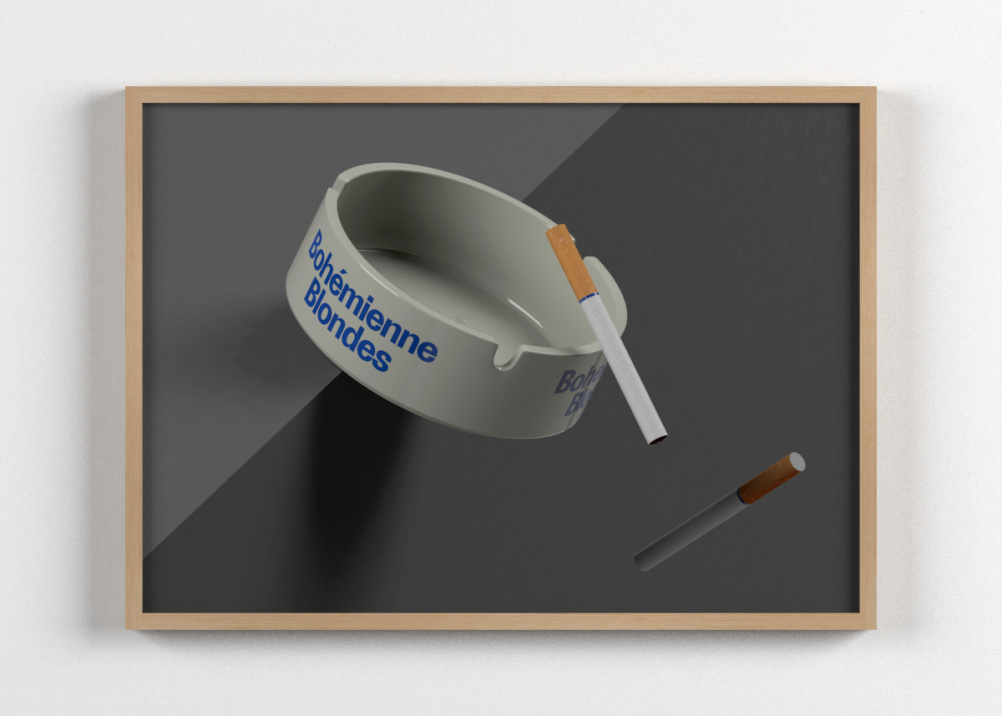
For example the words Bohémienne Blondes are written on the side of an ash tray in La Fabrique, making it look all care-free and aloof, while ‘Thank You. Have a very pleasant day’ is applied to a shopping bag in Law, presumably to look instructive, informative and to the point.
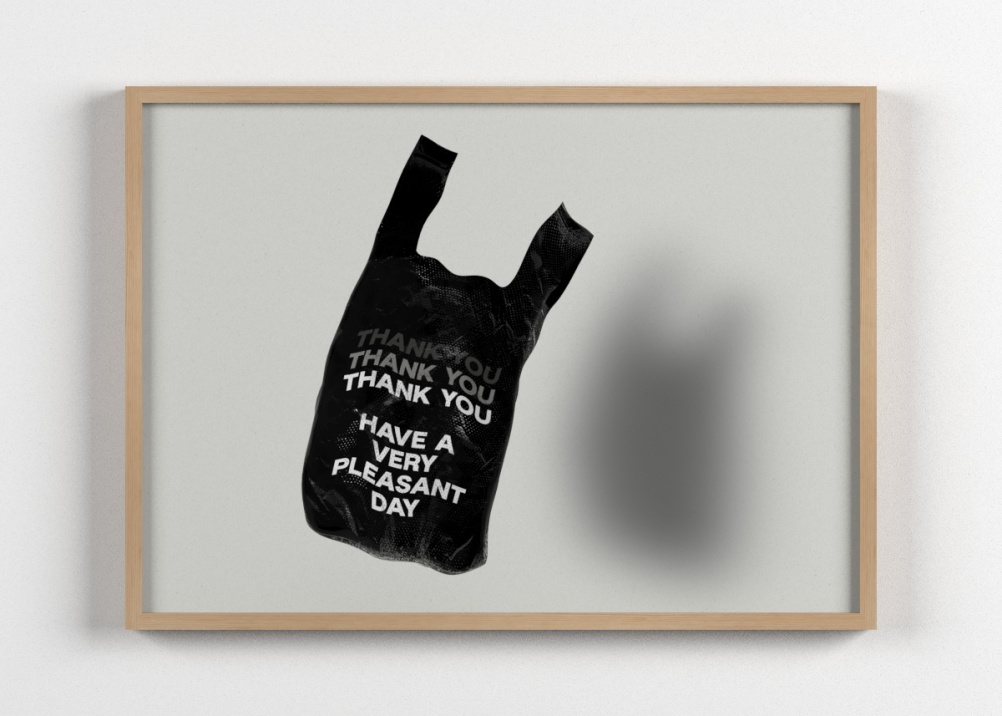
Meanwhile the Leroy typeface is clear, precise and numeric on this ruler.
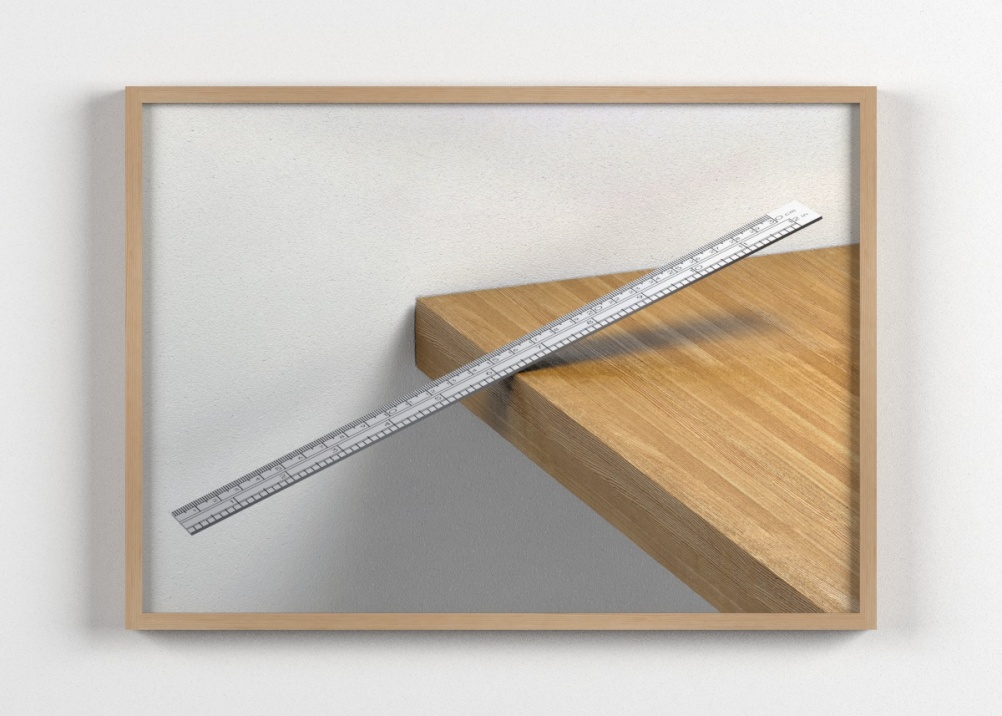
In all, 26 type faces have been plucked from the Colophon portfolio and one, Burgess, has been created especially for the exhibition.
Five Years features typefaces designed by Anthony Burrill, Benjamin Critton, Alison Haigh, Oscar & Ewan, Studio Makgill, and Dries Wiewauters for Colophon, as well as typefaces by the Entente, which was run by Sheret and Harrington before they set up Colophon.
The exhibition is accompanied by a catalogue of the same name, published by Colophon Foundry, and edited by Benjamin Critton, featuring an essay by Aileen Kwun.
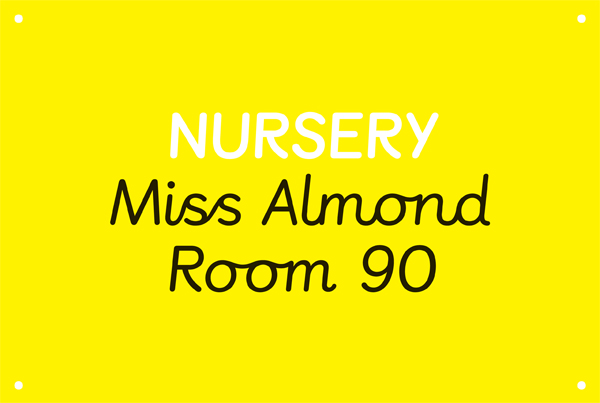
The Colophon Foundry also features in the Design Museum’s Designs of the Year exhibition. It’s been nominated for the Castledown Primary School Type Family.
The typeface was first developed for the school, but has since become a system that aims to unify typography throughout UK primary schools. It can be used as an aid for learning handwriting and has been designed to be easy for dyslexic children to use.